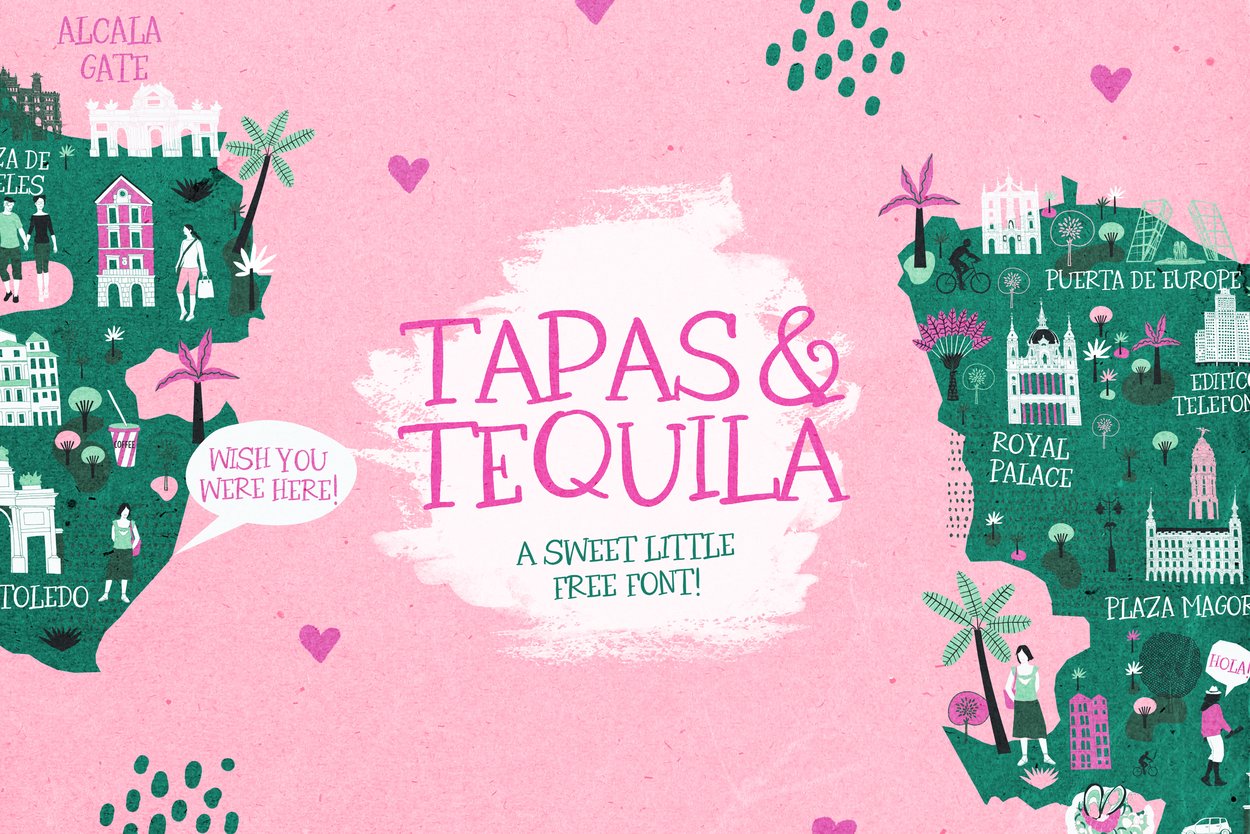
Tapas & Tequila Free font
- The font is all caps - but 2 different character sets for the upper and lowercase keystrokes.
- Full punctuation and numerals
- Spanish Language Support :)